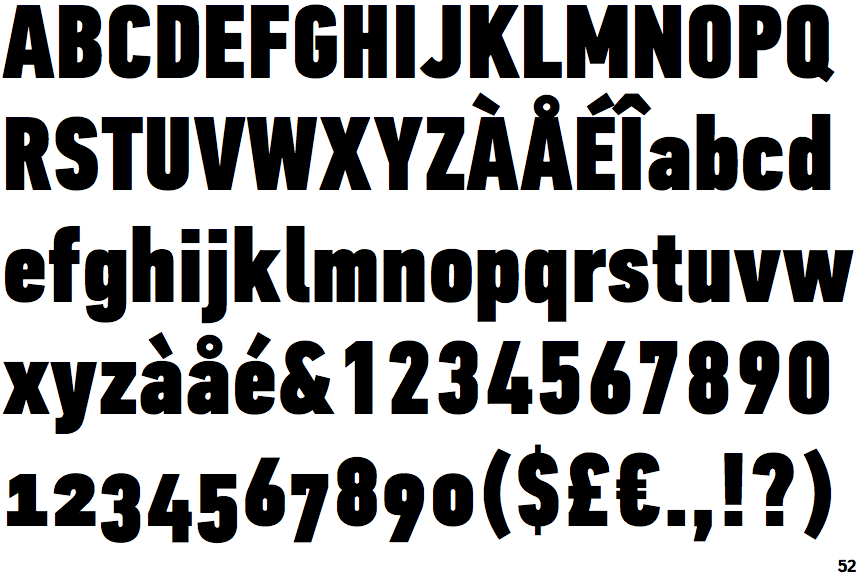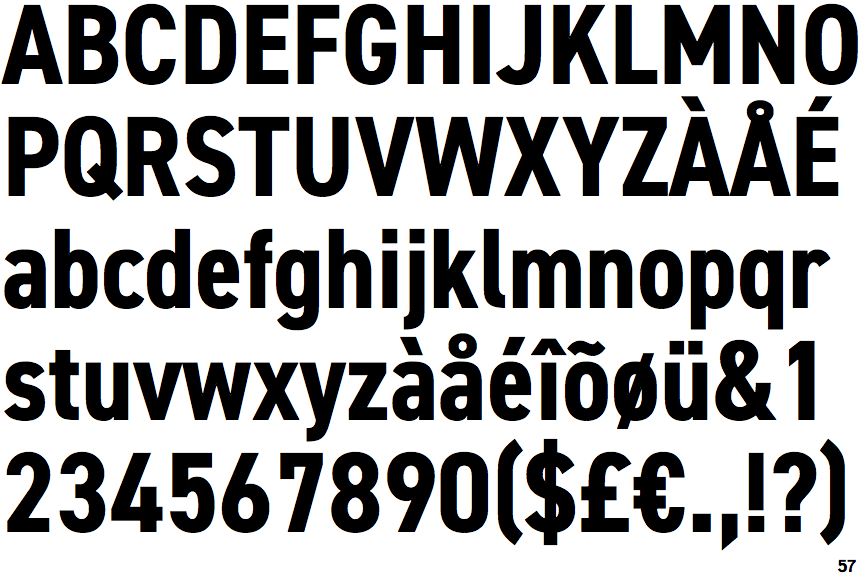
+23 Fonts Similar To Din Ideas. Here at what font is we have the perfect tool for that. This would be a great choice for display type.
Or maybe you want to verify how similar are two fonts. 3 google fonts similar to din see alternatives sofia pro 2 google fonts similar to sofia pro see alternatives itc avant garde gothic 2 google fonts similar to itc avant garde gothic. Hi, any help identifying this font similar to din please?
If you recognize the font from the samples posted here don't be shy and help a fellow designer. Browse our collection of fonts similar to din condensed. This is such a beautiful font.
It Was Defined By The German.
Check out the rounded aesthetic here. The core sans font, on the other hand, is the most similar to this material. Here at what font is we have the perfect tool for that.
Hi, Any Help Identifying This Font Similar To Din Please?
Din 1451 Contains 3 Styles.
This Typeface Is Similar To A Number Of Other Fonts.